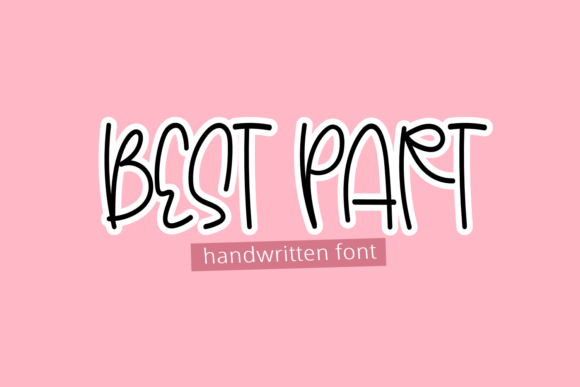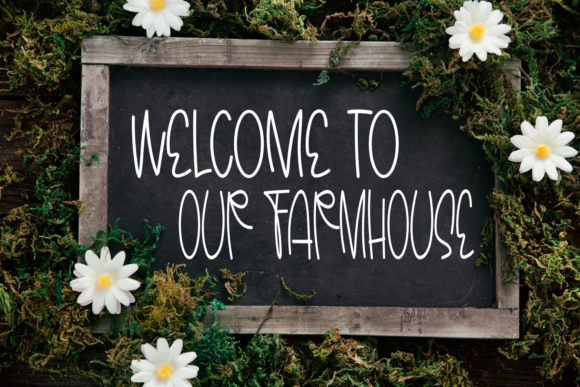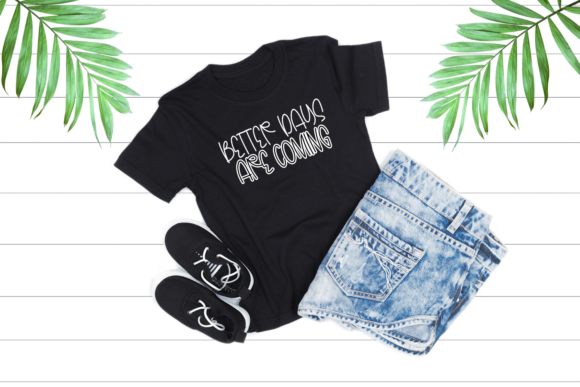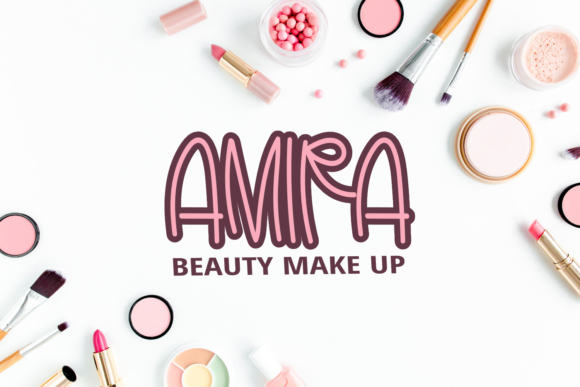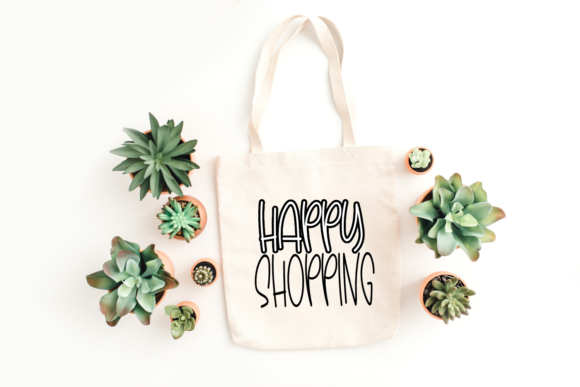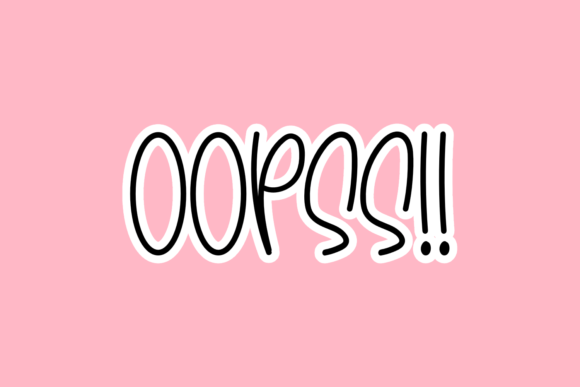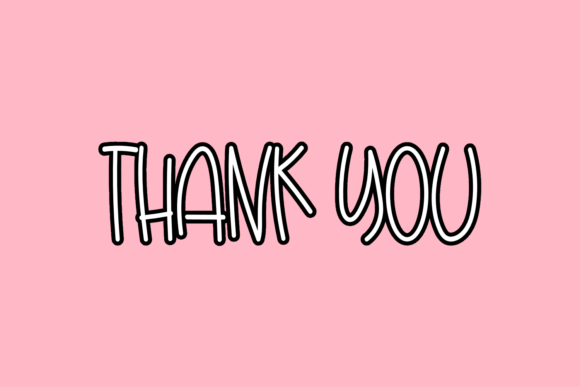
Best Part Font
About Best Part Font
Best Part is a cute handwritten font. Simple and easy to use, this font will be very beautiful if you mix it with your various craft designs.